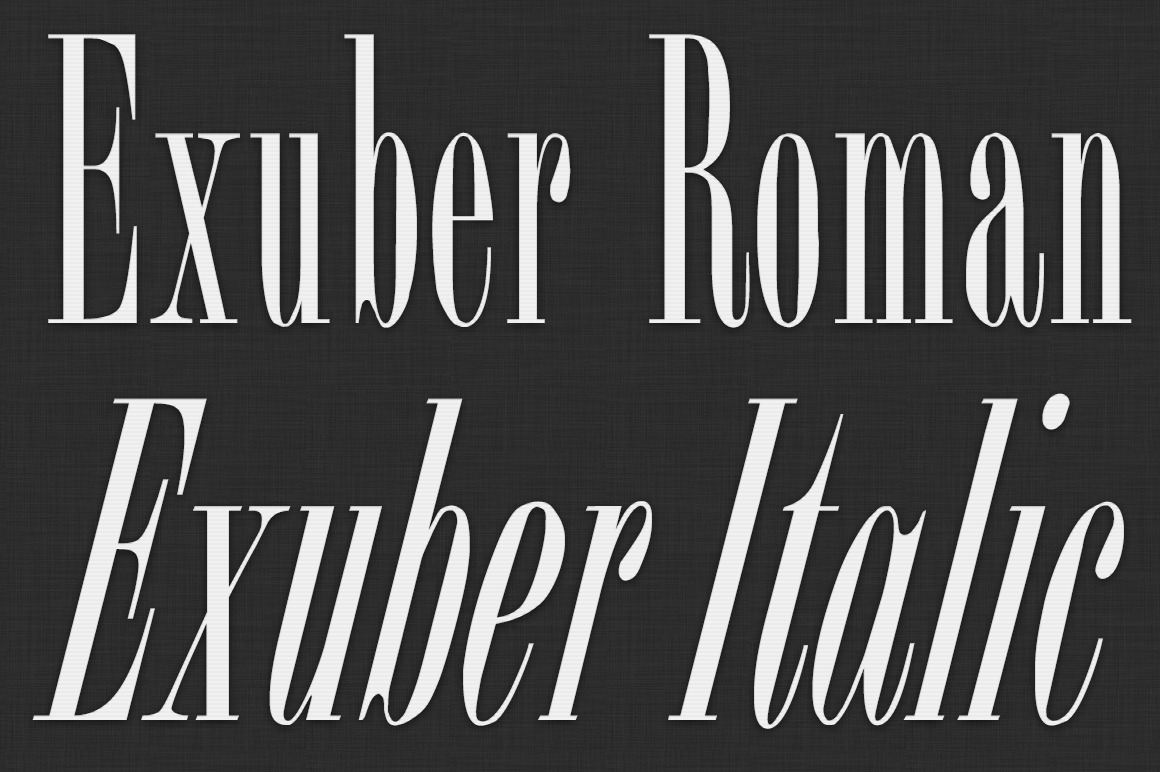
Exuber Typeface
EXUBER Serif Typeface
Readable and balanced serif font, to work well in every kind of design. Excellent for certificates, citations, diplomas,greeting cards,logos and other applications.